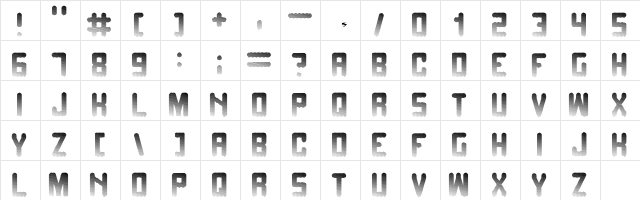
Fade to grey Regular
Design Context for Fade to grey Typeface
Fade to grey takes a measured approach to typography — its balanced proportions and neutral character make it a reliable workhorse for both digital and print work.